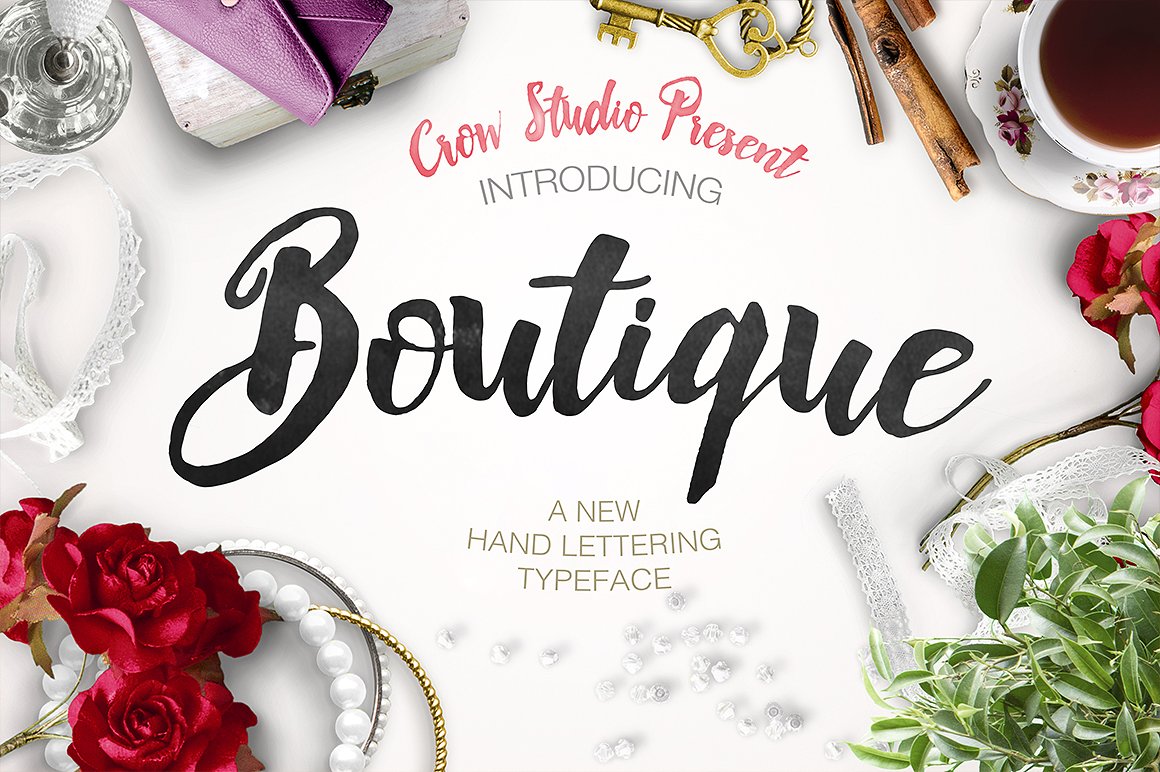
Boutique Brush
Boutique Brush Font
The BOUTIQUE is a high quality designed hand lettering typeface. Boutique has a special features, excellent compitable starts, sensitive ligatures, proper distances and some esthetic cuts. Perfect for using in watercolour, ink or textured paints based designs. Thanks for looking, and we hope you enjoy it.